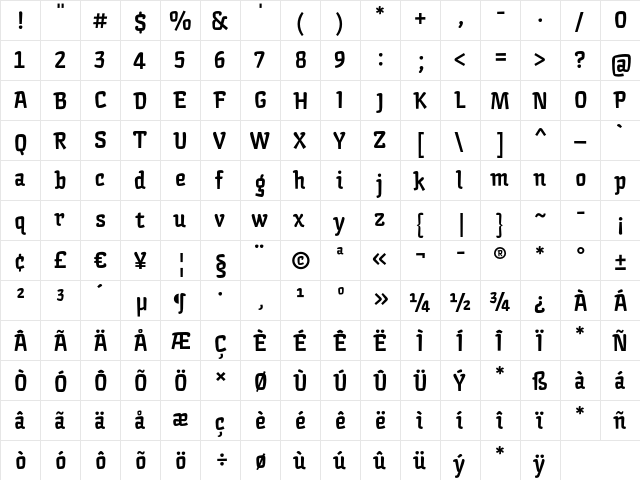
Arctic Black
| Foundry | Henning Skibbe |
| Designer | Henning Skibbe |
Design Context for Arctic Typeface
Arctic is a composed and adaptable typeface that performs quietly and consistently across a wide range of design contexts.